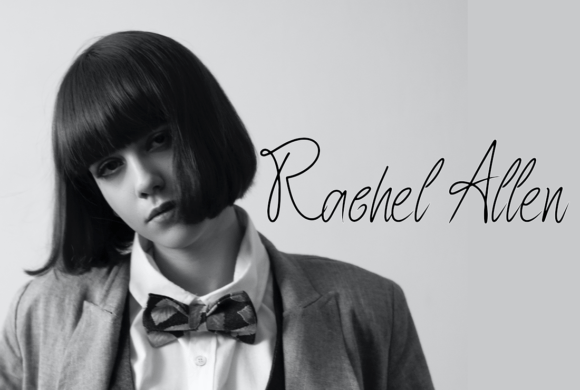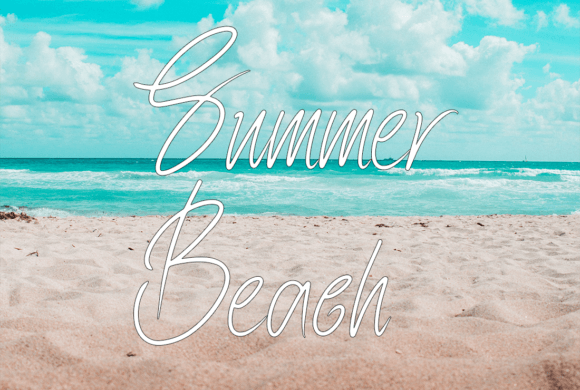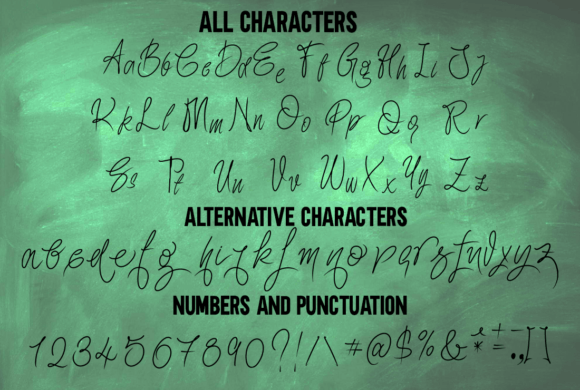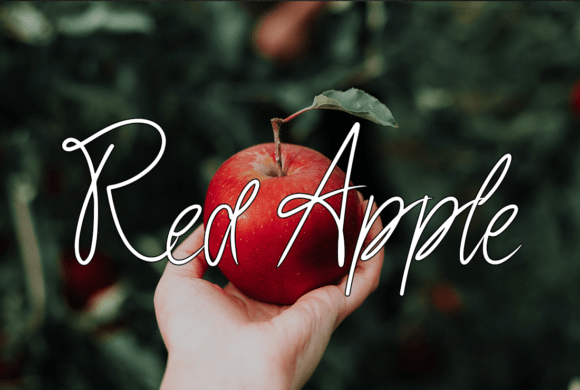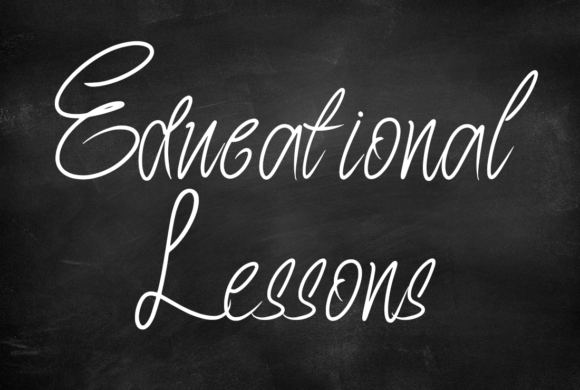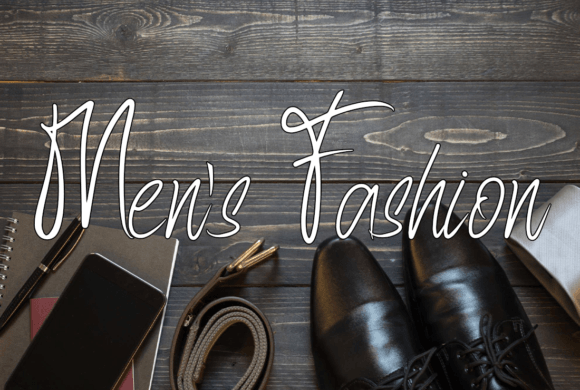
Final Signature Font
About Final Signature Font
The Final Signature Font Download is a modern calligraphy typeface designed to add elegance and class to your creative projects. With its graceful rhythm and flowing strokes, this script font captures the beauty of handwritten calligraphy while maintaining a refined, professional appearance.
Final Signature was created with versatility in mind, making it perfect for both personal and commercial use. Whether you’re designing logos, wedding invitations, stationery, social media graphics, or product packaging, this font ensures your work stands out with sophistication and timeless charm.
Features of Final Signature Font
• Modern calligraphy style with smooth, flowing strokes
• Elegant rhythm and balanced letterforms for a natural handwritten look
• Full character set including uppercase, lowercase, numerals, and punctuation
• Professional readability across both print and digital media
• Versatile design that adapts to casual, formal, and creative projects
Best Uses for Final Signature Font
• Wedding invitations and stationery – Add romantic elegance to your special day
• Logos and branding – Perfect for boutique businesses, fashion labels, or artisan brands
• Product packaging and labels – Enhance cosmetics, gourmet goods, or handmade items
• Social media graphics – Create stylish posts for Instagram, Pinterest, and blogs
• Greeting cards and advertisements – Add sophistication to promotional or personal designs
• Photography watermarks – Give your brand a professional handwritten signature style
• Event posters and banners – Elegant typography for weddings, galas, and celebrations
Why Choose Final Signature Font
The Final Signature Font Download is loved by designers for its ability to combine classic handwritten charm with modern usability. Unlike ordinary script fonts, it offers both elegance and readability, making it suitable for projects that demand sophistication without losing clarity.
Its calligraphic flow ensures that every word looks refined and artistic, while its balanced structure allows it to adapt seamlessly to various design contexts. From wedding stationery to branding campaigns, Final Signature adds a luxurious handwritten touch that resonates with audiences.
The Final Signature Font Download is a modern calligraphy script that brings elegance, charm, and versatility to your projects. With its graceful strokes, polished rhythm, and wide usability, it’s an excellent choice for invitations, logos, packaging, social media, and more.